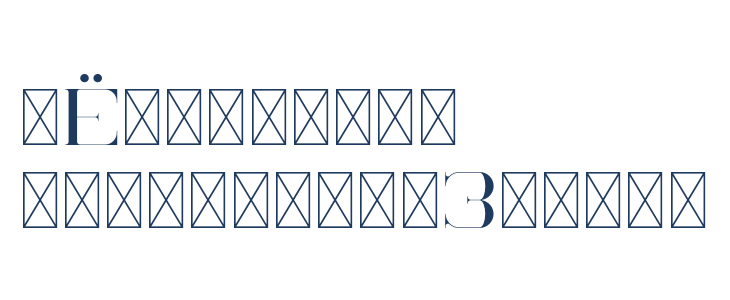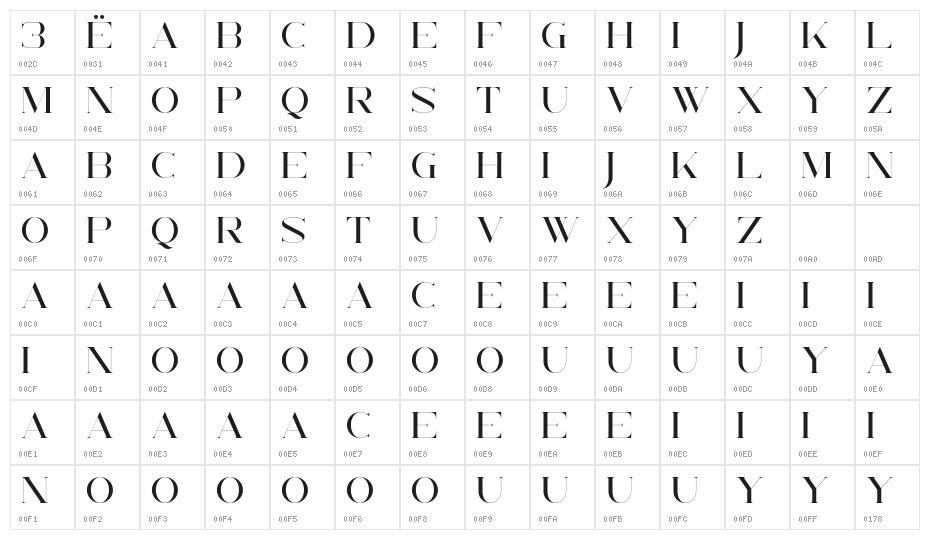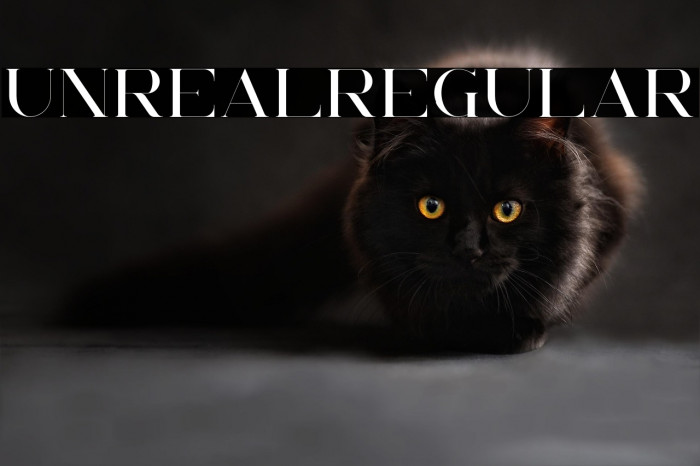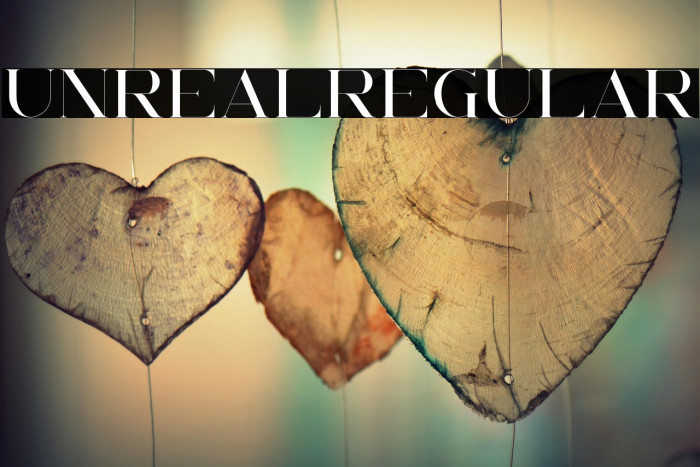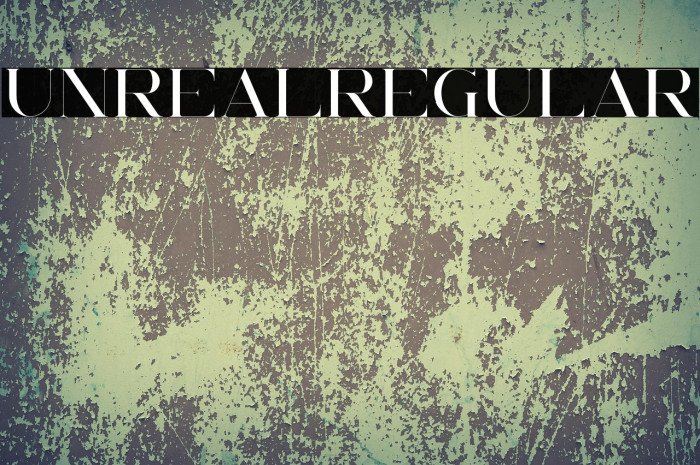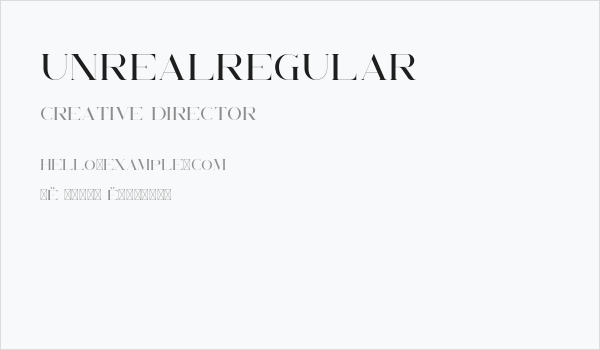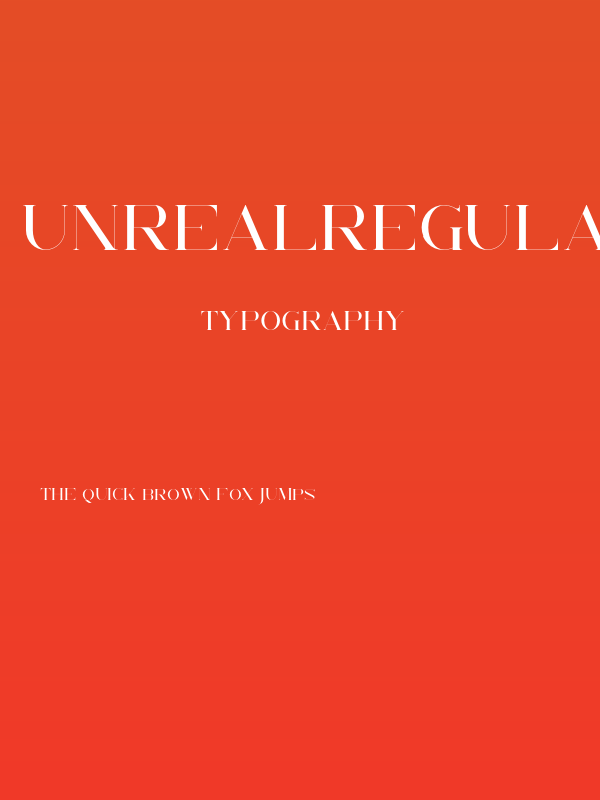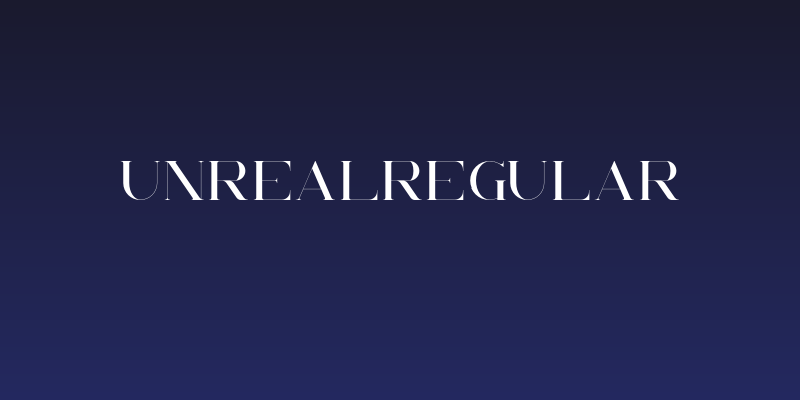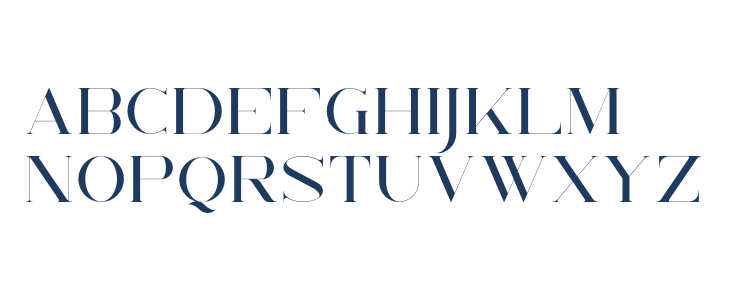
UnrealRegular Font
UnrealRegular Description
This font features a modern and sophisticated design with a high contrast between thick and thin strokes, giving it an elegant and stylish appearance. The uppercase letters are characterized by sharp, angular serifs and a geometric structure, while the lowercase letters maintain a consistent style with slightly more rounded forms. The numbers and special characters are designed to complement the overall aesthetic, maintaining the same high contrast and angular features. This font is ideal for creating a striking visual impact, making it suitable for headlines, logos, and other design projects that require a bold and contemporary look.
| Proposed Projects | Ideal for headlines, branding, logos, and editorial design. |